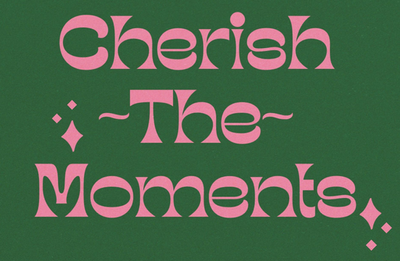
The Danish Pastel and Dopamine Decor trends lean heavily into 60s and 70s retro design. And part of that aesthetic are "groovy" fonts with features like:
thick rounded strokes, bottom-heavy, stokes that get wider at the ends, elaborate decorative ball terminals
There is a lack of this type of font in Zazzle, and I'd really like to see some like these:
What do you use to warp the fonts?
You can warp text in Illustrator using the Object>Envelope feature.
Nigel, though we can't warp fonts in the design tool, we can certainly do so for any text that's meant to be permanent, making templates with the same font for the customer to personalize.
(Photoshop has good warping abilities too.)